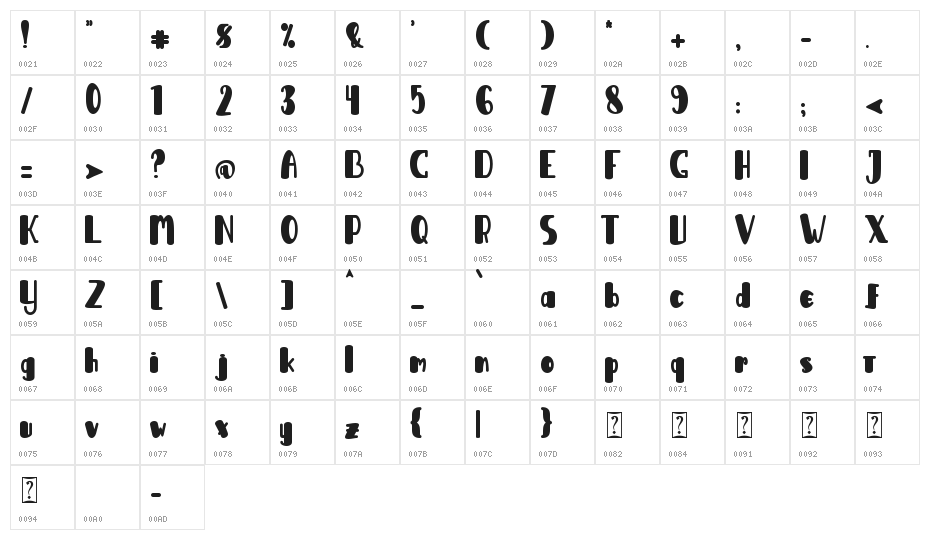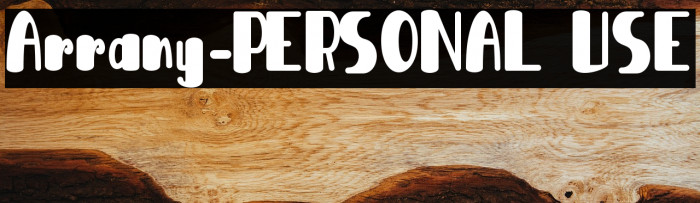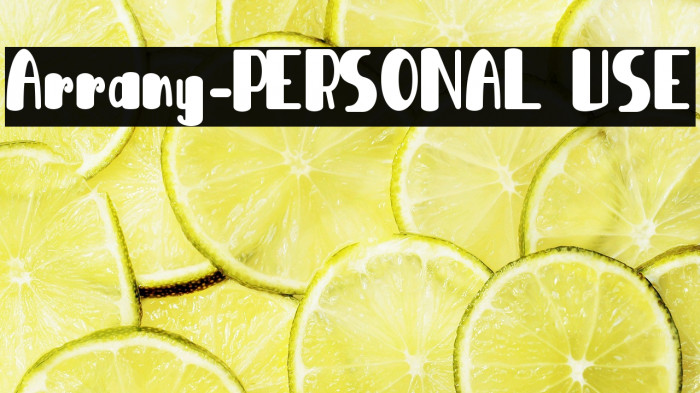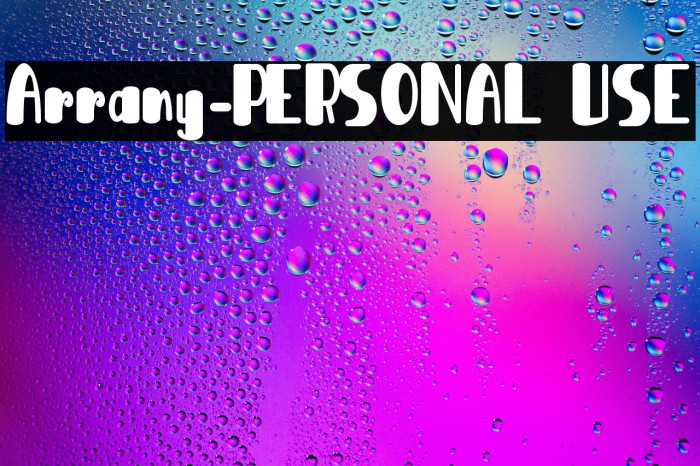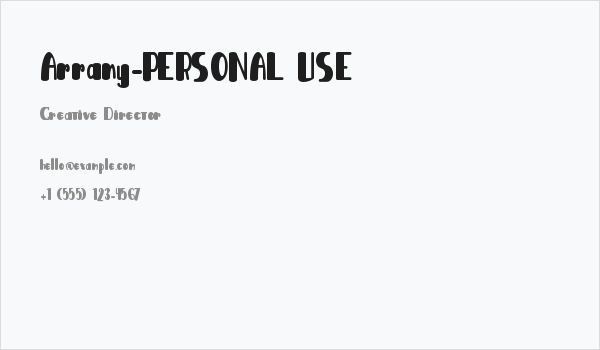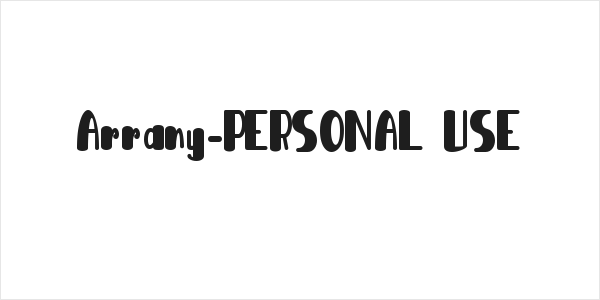
Arrany-PERSONAL USE Font
Arrany-PERSONAL USE Description
This font features a playful and bold design with a unique blend of rounded and angular elements. The uppercase letters are characterized by their thick, solid strokes and slightly curved edges, giving them a whimsical yet strong appearance. The lowercase letters maintain a consistent style, with some characters exhibiting distinctive loops and curves that add to the font's charm. The numbers are bold and easily readable, while the special characters are designed to match the overall playful aesthetic. This font's style is both eye-catching and versatile, making it suitable for various creative projects.
| Proposed Projects | Ideal for children's books, playful branding, posters, and creative invitations. |